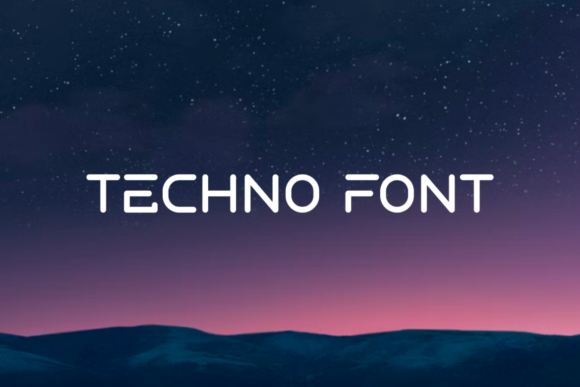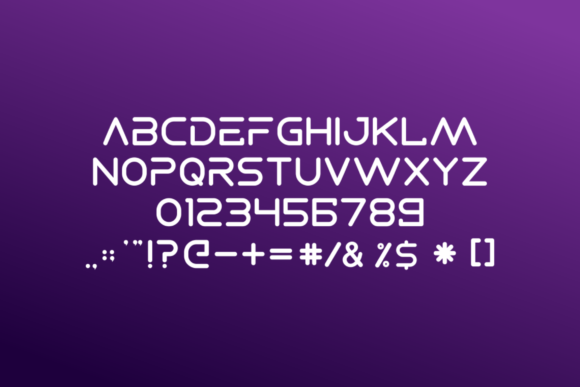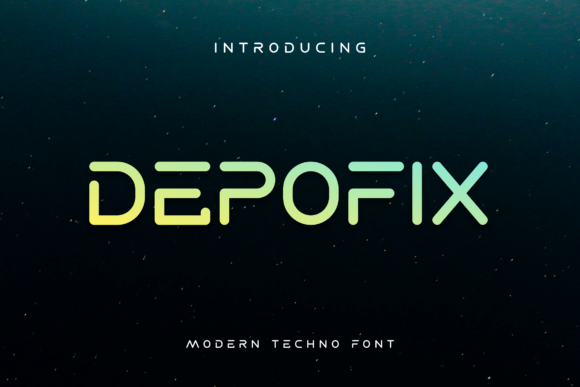
Introducing Depofix Font: The Futuristic Typeface for Modern Design
In the realm of typography, fonts play a crucial role in shaping the visual identity of a brand, product, or creative project. With the ever-evolving landscape of design, it’s essential to stay ahead of the curve with fresh and innovative typefaces. Depofix Font is a game-changing, futuristic font that embodies the essence of technology and modernity, making it an ideal choice for designers, crafters, and creative enthusiasts.
The Inspiration Behind Depofix
Depofix draws inspiration from the sleek, high-tech visuals commonly found in logos, sci-fi movies, games, and contemporary gadgets. This font is a reflection of the futuristic world we live in, where technology and innovation reign supreme. The design team behind Depofix has masterfully distilled the essence of modern technology into a unique and captivating typeface.
Depofix boasts a minimalist style that exudes sophistication and elegance. The font’s unique letterforms are carefully crafted to convey a sense of forward-thinking and innovation. The clean lines, precision-cut edges, and futuristic aesthetic make Depofix an exceptional choice for a wide range of design applications.
Versatility and Applications
Depofix is an incredibly versatile font, suitable for various design projects, including:
- Logos: Create a lasting impression with a futuristic logo that sets your brand apart.
- Labels: Add a touch of modernity to your product labels and packaging.
- Posters: Grab attention with bold, eye-catching typography.
- Packaging: Elevate your product design with a font that screams innovation.
- Books and Movies: Add a futuristic twist to your titles, headings, and promotional materials.
- Presentations: Make your presentations more engaging and memorable.
- Games: Create a immersive experience with a font that resonates with gamers.
Why Choose Depofix?
Depofix offers a unique combination of style, versatility, and innovation, making it an attractive choice for designers and crafters. Here are some compelling reasons to choose Depofix:
- Unique and Memorable: Depofix’s distinctive design ensures your project stands out from the crowd.
- Highly Legible: The font’s clean lines and precise cut edges ensure excellent readability.
- Customizable: Depofix can be easily customized to fit your project’s specific needs.
- Time-Saving: With Depofix, you can quickly create professional-looking designs without spending hours on typography.
Tips for Using Depofix Effectively
To get the most out of Depofix, consider the following tips:
- Pair with Neutral Colors: Depofix looks stunning when paired with neutral colors like black, white, and gray.
- Experiment with Sizes: Depofix can be used at various sizes, from large headings to small body text.
- Mix with Other Fonts: Combine Depofix with other fonts to create a unique visual hierarchy.
Depofix Font is a game-changing, futuristic typeface that offers a perfect blend of style, versatility, and innovation. Whether you’re a designer, crafter, or creative enthusiast, Depofix is an excellent choice for your next project. With its unique letterforms, minimalist style, and wide range of applications, Depofix is sure to elevate your designs and leave a lasting impression.